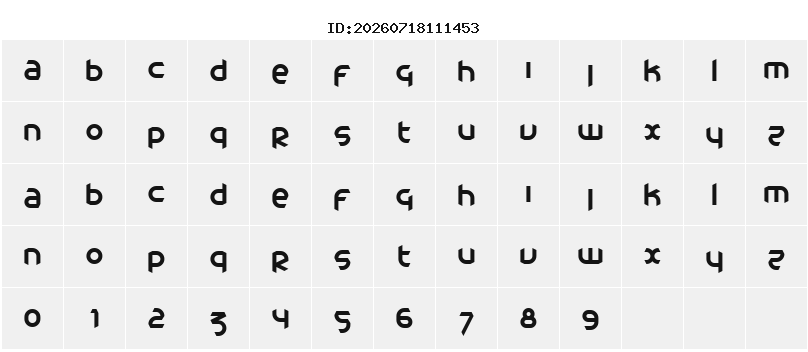
• Font Name: Catharsis Cargo
About Catharsis Cargo.ttf
Catharsis Cargo.ttf is a modern, elegant sans-serif font designed for ultimate readability and visual harmony. Perfect for branding, headlines, web design, and print materials.